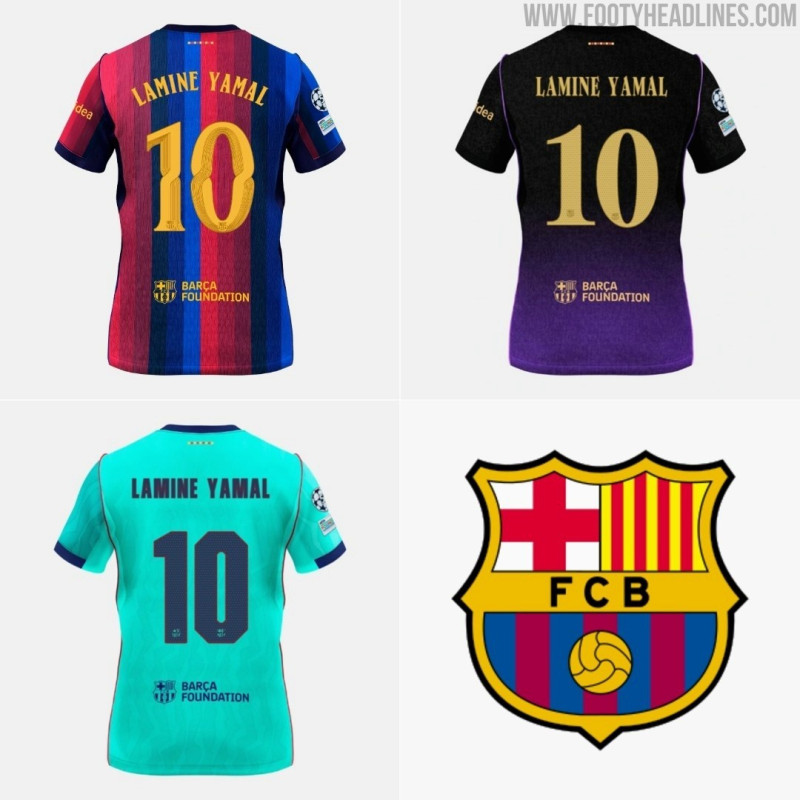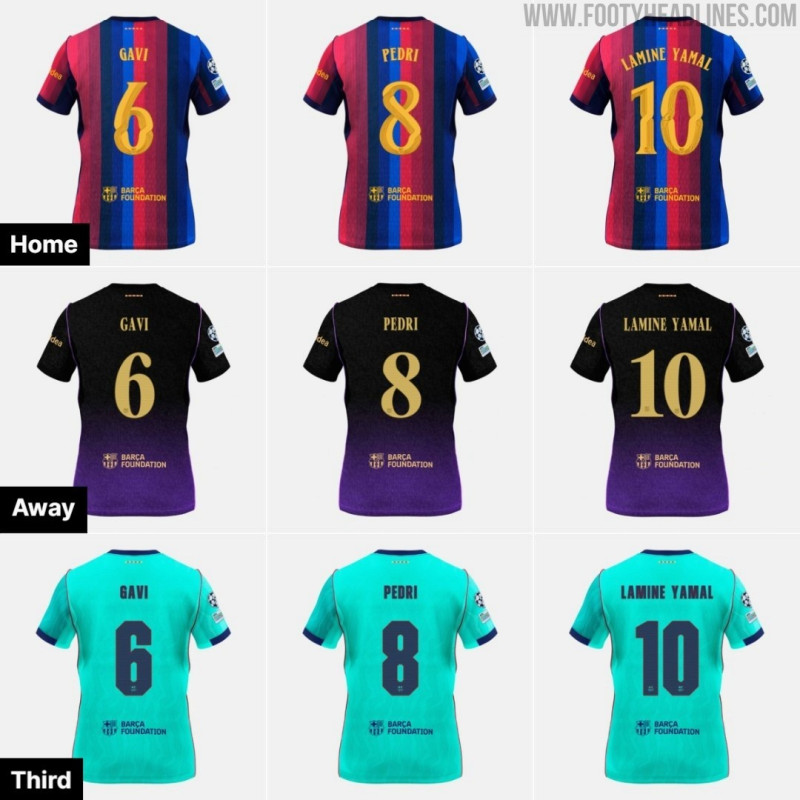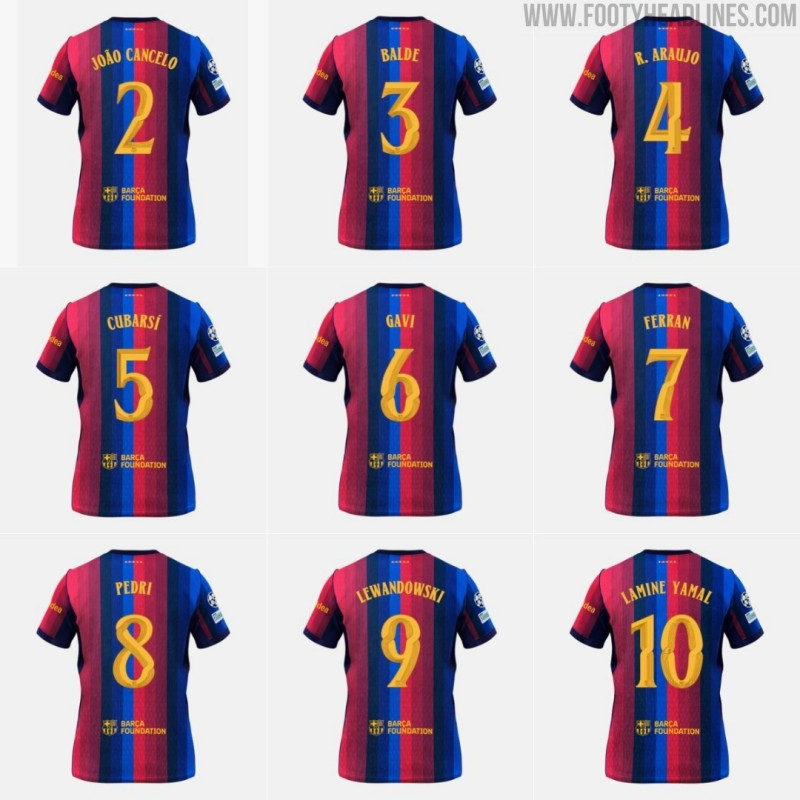
Three Bespoke FC Barcelona 26-27 Home, Away & Third Kit Fonts Released
- Overall Font Transformation: FC Barcelona has unveiled three brand-new bespoke typefaces for their 2026-27 home, away, and third kits, marking a significant change after seven seasons using the same font set.
- Distinct Design Approaches: The new kit fonts come in three distinct versions; the home and away fonts feature soft, flowing designs with elegant curves, whereas the third kit font adopts a more angular and squared-off approach.
- Home Kit Font Inspiration: The FC Barcelona 26-27 home kit font moves away from standard sports typography, introducing artistic lines deeply inspired by the famous Modernisme Català (Catalan modernist architecture) movement.
After seven consecutive seasons using the same font set, FC Barcelona has made an impressive transformation by unveiling three brand-new bespoke typefaces, each specially designed for the home, away, and third kits for the 2026-27 season.
FC Barcelona 26-27 Kit Fonts - 3 Editions
The new FC Barcelona 26-27 kit fonts come in three distinct versions, tailored specifically to each kit. While the home and away kit fonts feature a soft, flowing design with elegant curves, the third kit font takes a more angular and squared-off approach.
FC Barcelona 26-27 Home Kit Font
The new FC Barcelona 26-27 home kit font completely moves away from standard, blocky sports typography and introduces artistic lines deeply inspired by the famous Modernisme Català (Catalan modernist architecture) movement.
FC Barcelona 26-27 Away Kit Font
The new FC Barcelona 26-27 away kit font comes in a rich, metallic gold color. This vibrant gold shade provides high contrast against the dark black-and-purple base of the jersey, complementing the gold sleeve trims, sponsor logos, and club crest on the front.
FC Barcelona 26-27 Third Kit Font
The new FC Barcelona 26-27 third kit font introduces a distinctly modern, structured aesthetic that sets it apart from the rest of the club's 2026-2027 lineup.